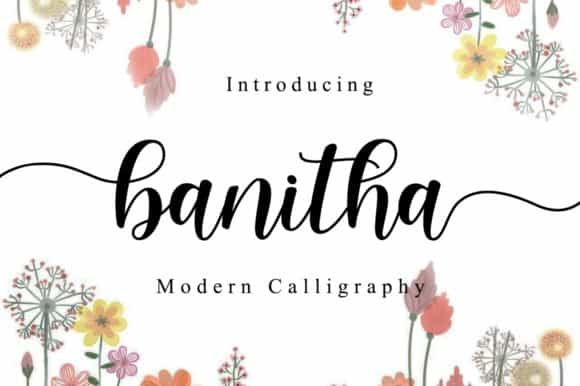
Banitha is a calligraphy script font with the contemporary hand scratches style. This font can be used for your work easily and simply if you want to do so because it has a lot of features that contain the whole set of letters, both lower case and upper case, different punctuation marks, numbers as well as multilingual support.